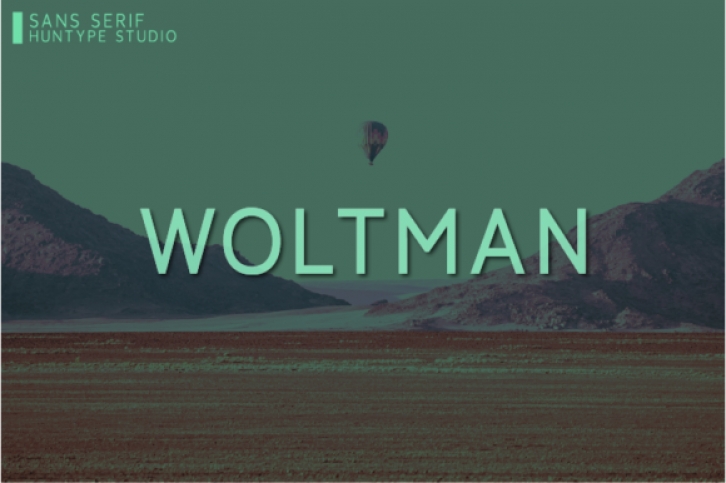
Woltman is a simple and authentic sans serif font. No matter the topic, this font will be an incredibly asset to your fonts’ library, as it has the potential to elevate any creation.